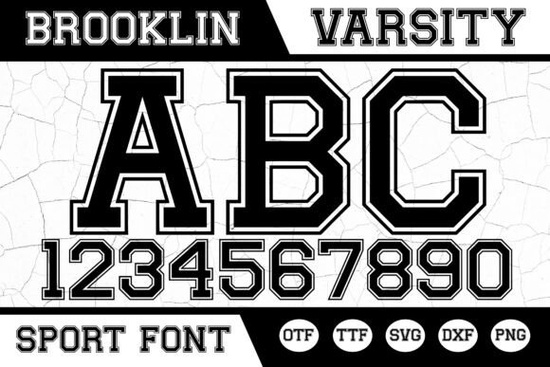
If you've been searching for a typeface that brings that classic college lettering feel to your designs, the Brooklin Varsity Font is worth a closer look. This bold display typeface draws directly from the world of sports jerseys, university branding, and championship graphics and it does it well. You can find it available on Creative Fabrica as part of their display font collection.
What Does the Brooklin Varsity Font Look Like?
Brooklin features sharp edges, strong outlines, and a heavy, commanding weight. It's the kind of font you'd expect to see on a football jersey or a university sweatshirt. The letterforms are wide and blocky with solid structure, giving every word a sense of authority and energy. If you're familiar with bold block-style typefaces, Brooklin sits in that same territory but with a distinctly athletic personality.
Compared to something like the Collegestyle Regular Font, Brooklin feels more aggressive and modern. Collegestyle leans toward a clean, traditional university look, while Brooklin adds sharper edges and more visual punch. Both work well for varsity-themed projects, but Brooklin is the better choice when you want your text to stand out at a distance on banners, signage, or apparel mockups.
Where Can You Use a Varsity Display Font?
Varsity fonts are surprisingly versatile. Here are some common ways designers and small business owners put them to work:
- Sports team logos and branding school teams, local leagues, fantasy sports graphics
- Print-on-demand products t-shirts, hoodies, mugs, and tote bags with athletic themes
- Social media graphics bold headers for Instagram posts, YouTube thumbnails, or event announcements
- Event materials banners, flyers, and posters for tournaments, pep rallies, or fundraisers
- Greeting cards and scrapbooking especially for graduation or sports-themed designs
If you sell on platforms like Etsy or Redbubble, pairing Brooklin with a clean sans-serif for body text can create a polished, professional product listing without much extra effort.
How Does Brooklin Compare to Other Varsity Fonts?
There are quite a few varsity-style fonts out there, so it helps to know how Brooklin stacks up. The Distressed Varsity Font takes a different approach it adds a worn, textured look that gives designs a vintage or retro feel. If your project calls for something gritty and weathered, that one might be a better fit. Brooklin, on the other hand, keeps things clean and sharp with no distressing, which makes it more flexible across different styles.
For designers who want variety in their font library, it's worth exploring options like the Collegestyle typeface for softer projects and keeping Brooklin for the high-impact moments. You might also look at Smart Candy Font if you need something playful alongside your athletic designs it balances out a bold display font nicely for kid-friendly or party-themed projects.
Tips for Working With Bold Display Fonts
Using a heavy, wide typeface like Brooklin effectively takes a little planning. Here are a few practical tips:
- Watch your spacing. Bold display fonts often need tighter letter-spacing to look right, especially at larger sizes. Adjust your kerning if needed.
- Limit your font pairing. Brooklin does the heavy lifting visually, so pair it with a simple, neutral typeface not another decorative font.
- Use it at the right size. This kind of font works best at medium to large sizes. It can feel cramped in small body text.
- Test on mockups. Before listing a product, place your design on a mockup to see how the font reads in context on a shirt, a mug, or a poster.
Is Brooklin the Right Font for Your Next Project?
If your design needs that unmistakable varsity energy strong, athletic, and ready for the spotlight Brooklin delivers. It's a solid choice for anyone working in sports branding, merchandise design, or event graphics. You can check out the full details and grab it from the Brooklin Varsity Font product page on Creative Fabrica.
For crafters and designers building out a broader font toolkit, consider combining Brooklin with a distressed option and a clean sans-serif. That gives you flexibility for everything from vintage sports designs to modern athletic branding.
Tip: Start with a single bold headline using Brooklin and build the rest of your layout around it. Let the font set the tone, then keep everything else simple.